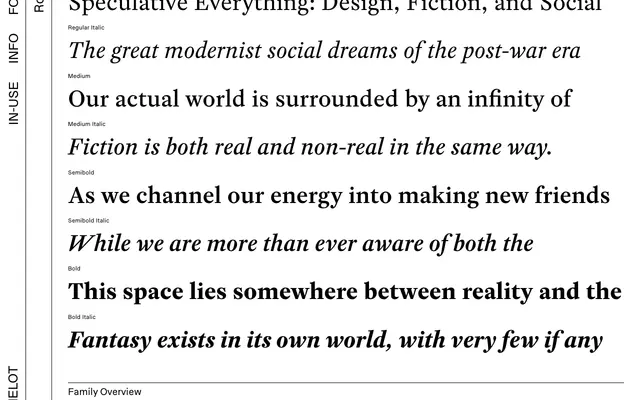
Rosart
Camelot · Katharina Köhler
Rosart specimen from Camelot
A digital revival of Jacques-François Rosart's 1768 specimen, drawn by Katharina Köhler across four weights with matching italics for contemporary text use.
Katharina Köhler distilled the idiosyncrasies of Rosart's letterforms by comparing them against Fournier and Fleischman, arriving at a clean interpretation of the 18th-century Dutch tradition. The family runs from Regular to Bold with matching italics, and the construction deliberately keeps Bézier points to a minimum as a point of contemporary discipline. OpenType features include small caps throughout, swash alternates in the italic, old-style and lining figures, and support for approximately 250 Latin-based languages.
Based on an 18th-century specimen by Jacques-François Rosart from 1768, with references to Fournier and Fleischman, placing it firmly in the Baroque/transitional tradition of the Dutch and French punchcutters.